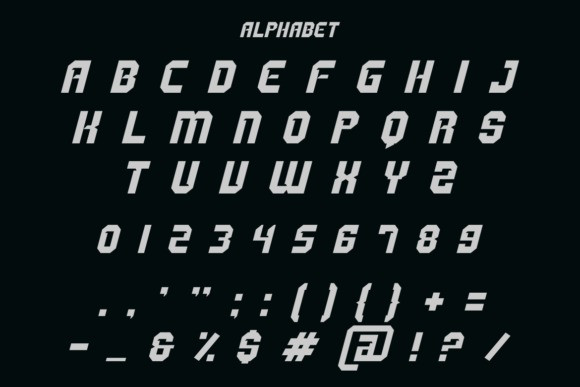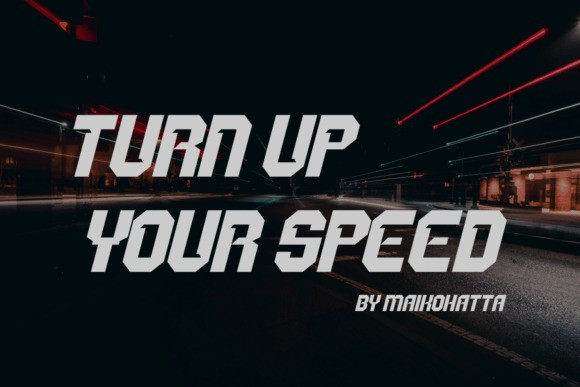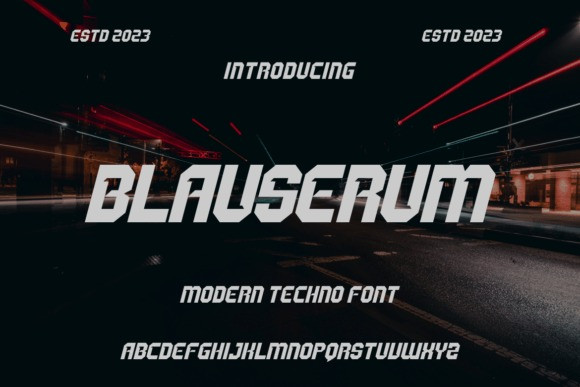
Blauserum Techno Font
Blauserum Techno Font, is a cool, bold, and modern display font. No matter the topic, this font will be an incredible asset to your fonts’ library, as it has the potential to elevate any creation.